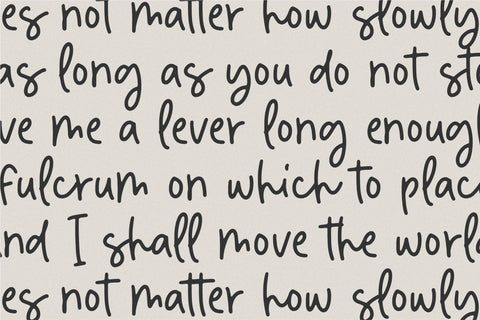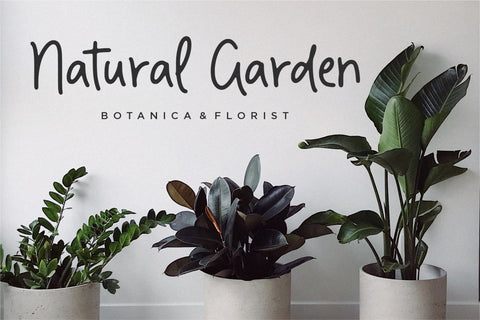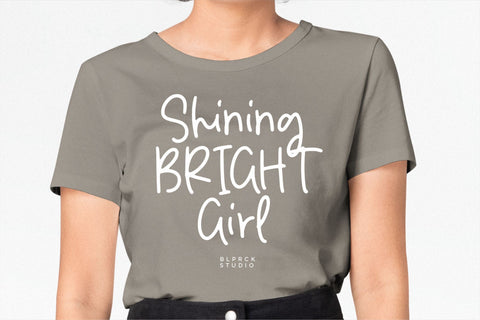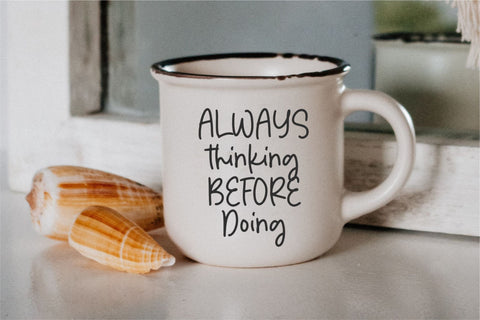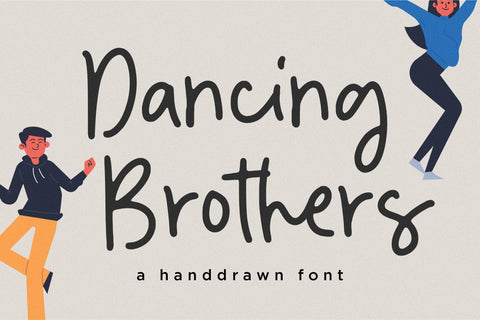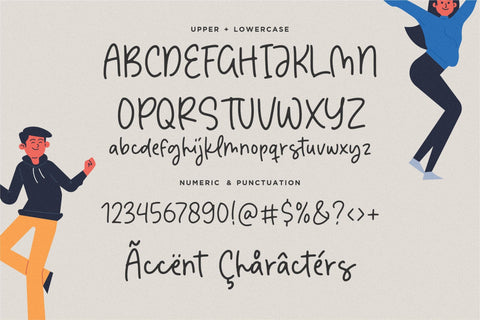
Dancing Brothers Font
Dancing Brothers - a Handdrawn that's clean, elegant and perfect for a range of design projects! With its smooth, effortless lines and understated sophistication, this font is the perfect choice for those who want a modern look that's still timeless in its appeal.
Crafted with precision and care, this font is incredibly versatile and can be used for a range of design projects, including logos, branding, invitations, packaging, and more. With its simple yet refined aesthetic, it's sure to make a lasting impression on anyone who sees it.